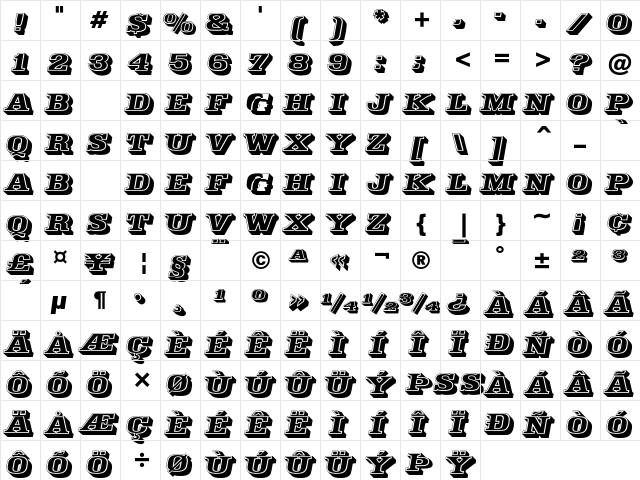
Decorated 035 Regular
Design Context for Decorated 035 Typeface
Decorated 035 is a composed and adaptable typeface that performs quietly and consistently across a wide range of design contexts.